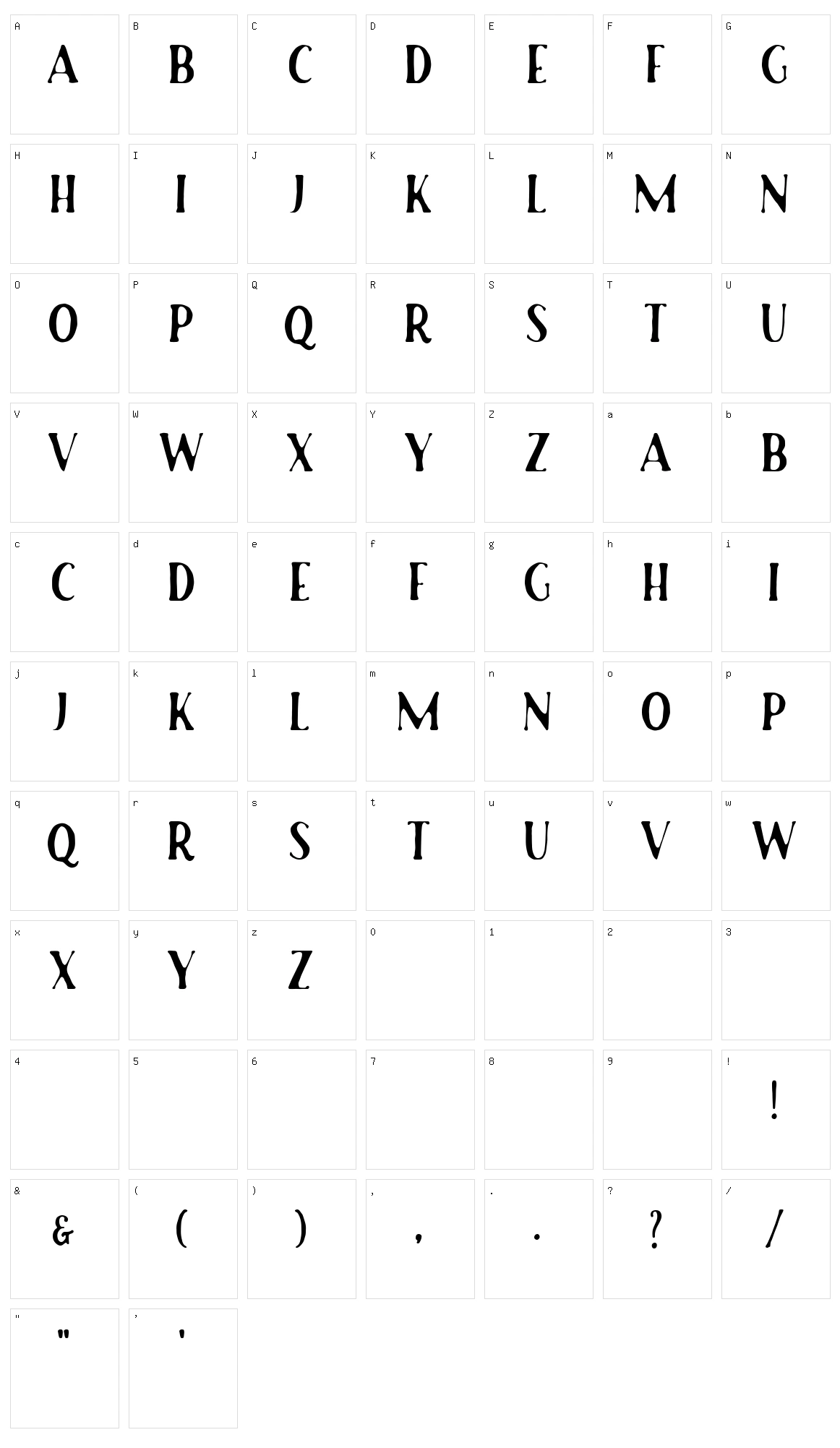
The free font Rusted Orlando Serif is carefully designed by Runsell Studio, showcasing a thoughtful balance of creativity and usability and falls under the Eroded font style. When you download the ZIP file, it contains only 40.79 KB of font files, making it lightweight and quick to download. Please review the license details below to understand permitted usage and distribution rights. If license information is not available, we recommend using this font for personal projects only or contacting the author directly for commercial usage permissions.